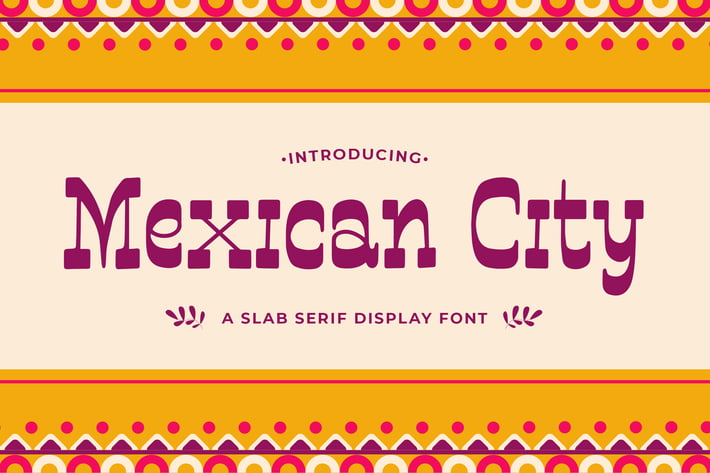
Mexican City – A Slab Serif Display Font
Mexican City is a slab serif font with a western feel.
With its neat and beautiful arrangement of letters, this typeface will look outstanding in both formal and non-formal designs.
Perfect for headlines or logos, Porter finds its inspiration in the style of mid-19th century typefaces using generous slab serifs and a hard-working appearance.